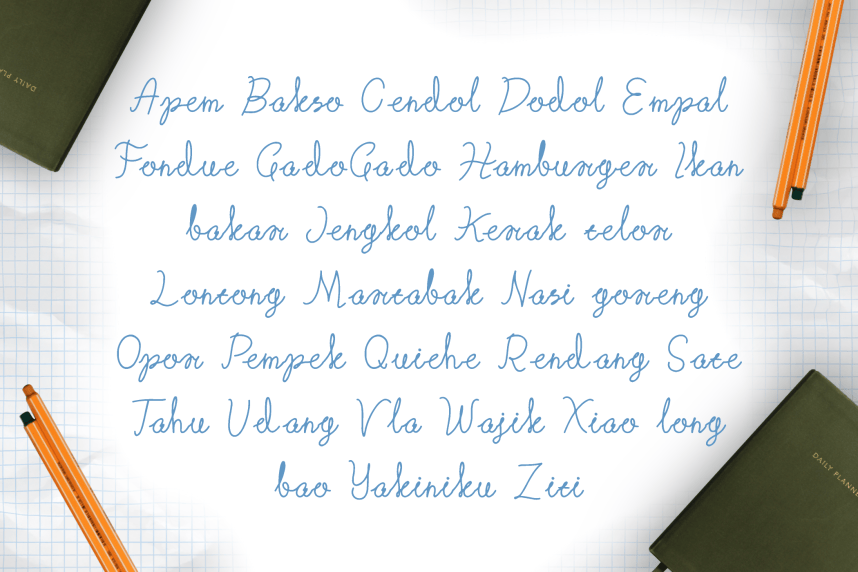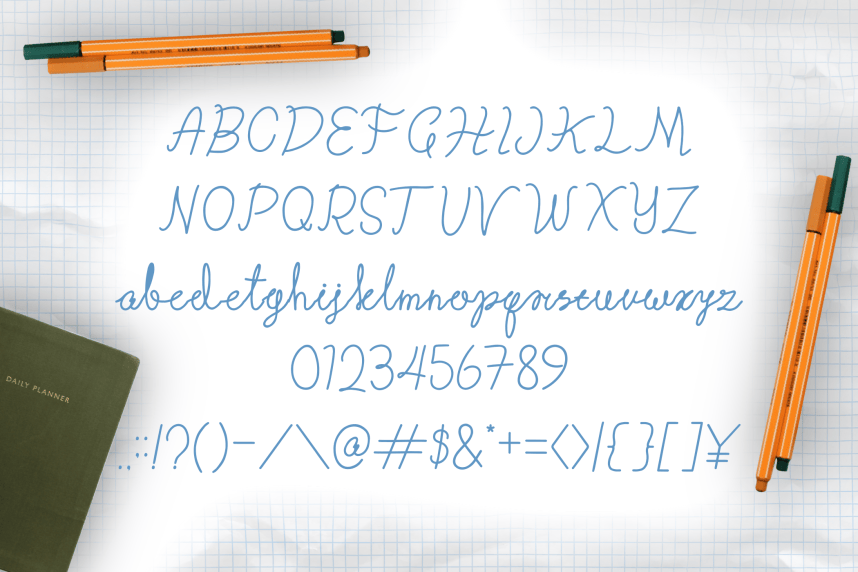
Corolla Line Script Font
Corolla Line Script Font – A versatile script font with a clean, flowing style that works beautifully for study guides, lecture notes, journals, and educational materials. It offers just enough elegance to elevate everyday writing without sacrificing readability.